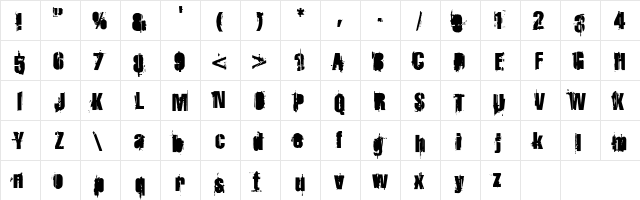
Strokey Bacon Regular
Design Context for Strokey Bacon Typeface
Strokey Bacon is a composed and adaptable typeface that performs quietly and consistently across a wide range of design contexts.